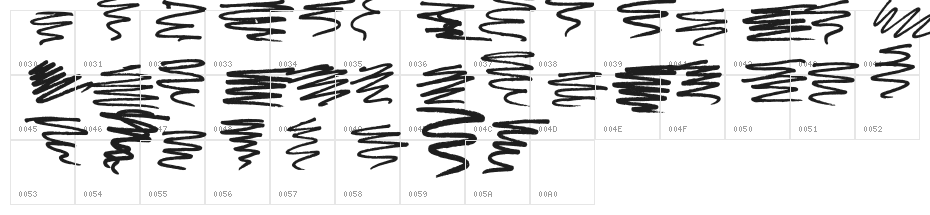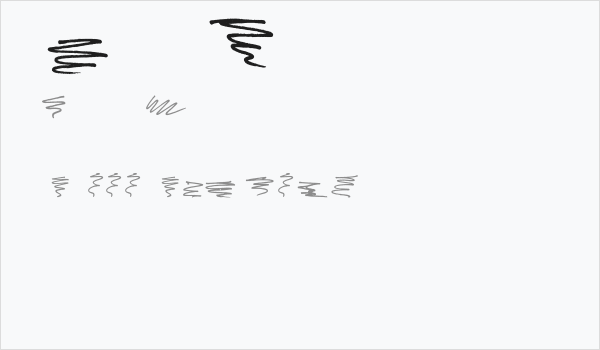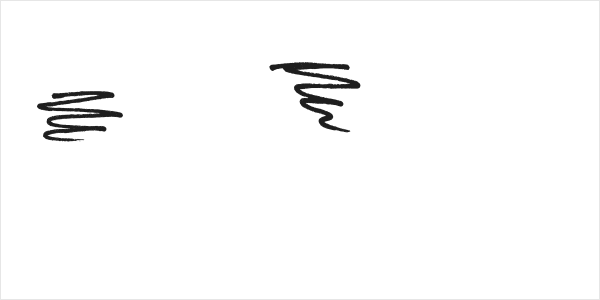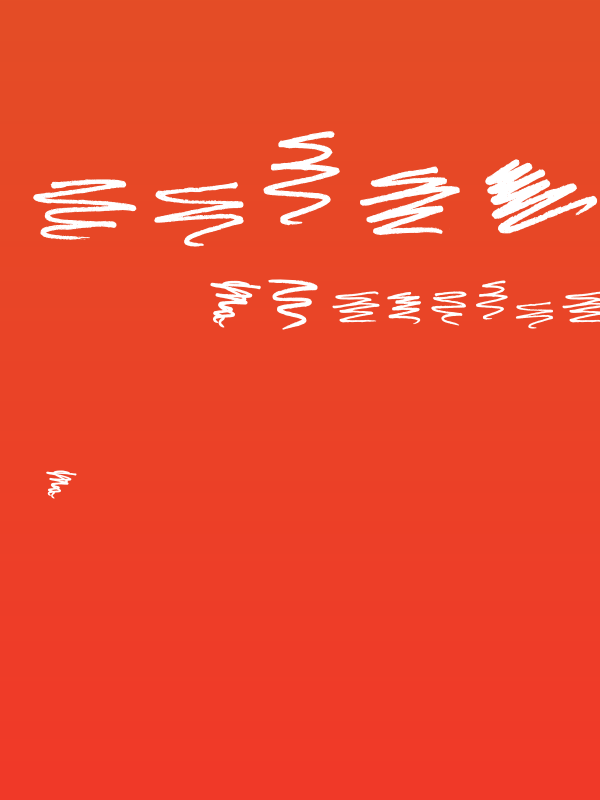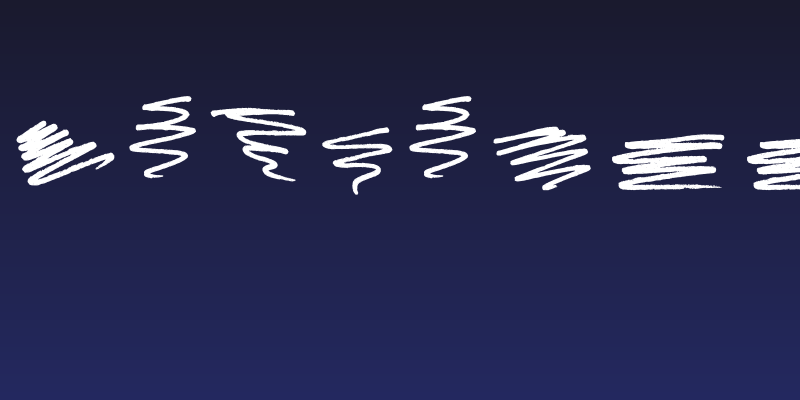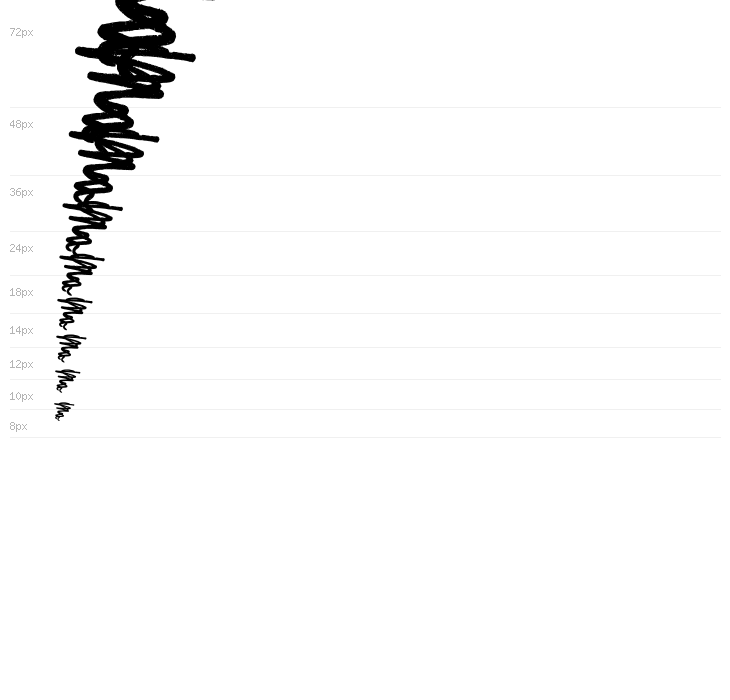
MarkerScribbles Font
MarkerScribbles Description
A highly expressive, hand-drawn style resembling quick marker scribbles, with irregular, energetic strokes and a playful, informal appearance. The lines vary in thickness and direction, giving a spontaneous and dynamic feel.
| Overall Style | Decorative, Playful, Artistic |
| Use Case | Headlines, Posters, Logos, Artistic projects |
| Proposed Projects | ChildrenΓ’β¬β’s book titles, playful posters, creative branding, informal event invitations, art projects. |